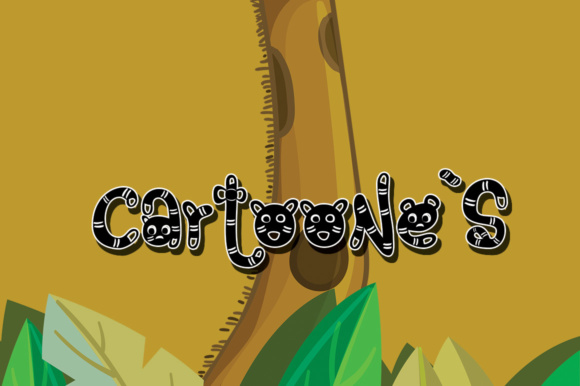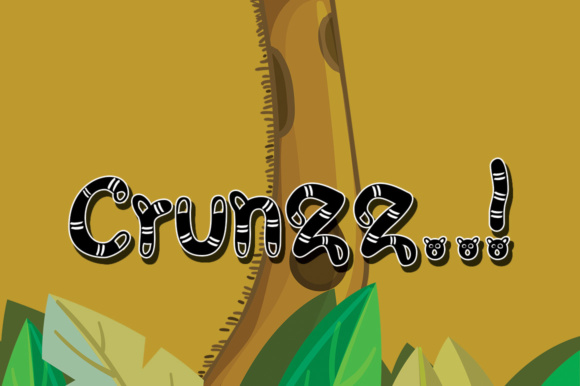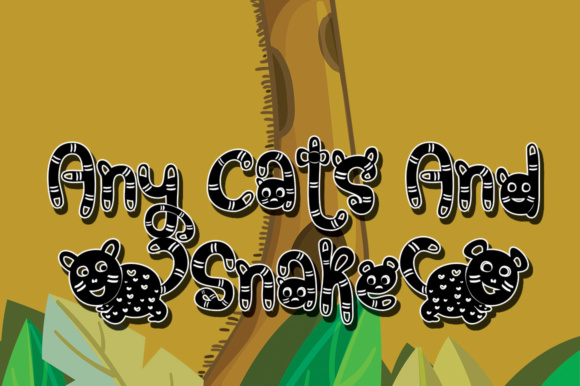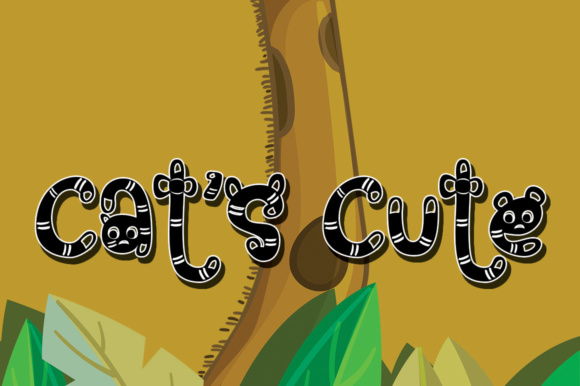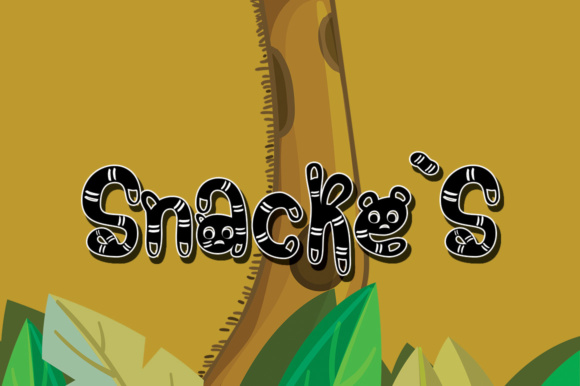
Introduction to Scampers Font
The Scampers is an unique display typeface.
It’s letters are in the form of cat tails which will give your design a playful feel .